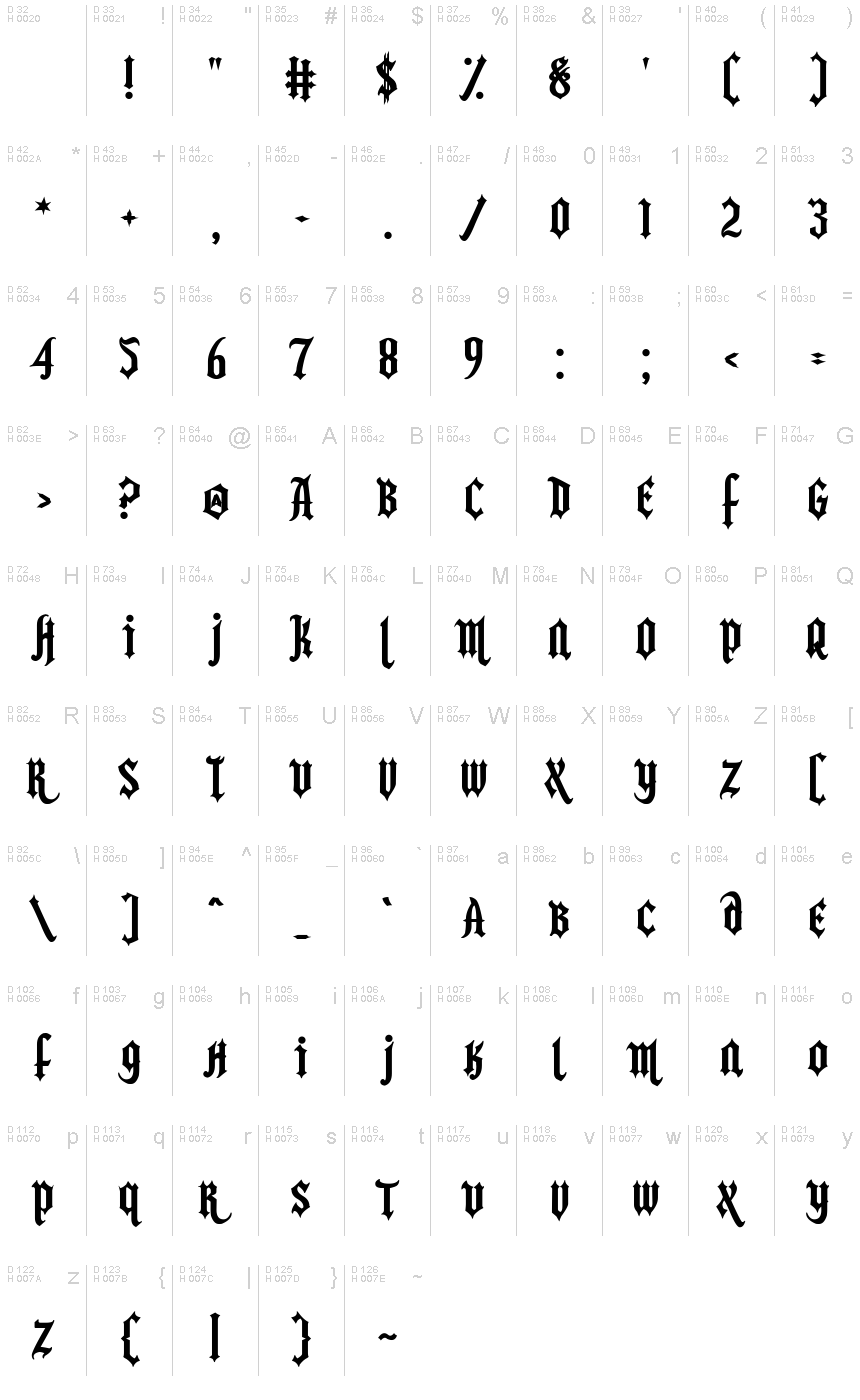
Flight of the Ocean
Flight of the Ocean, a modern gothic masterpiece crafted by Chequered Ink, captivates with its striking, condensed silhouette. This distinctive font radiates a sense of oceanic grandeur, evoking the mysterious and untamed power of the high seas. Its sharp, angular letterforms and seamless flow create a bold, impactful visual experience, making it a compelling choice for projects seeking a strong, dynamic aesthetic.
Versatile and adaptable, Flight of the Ocean lends itself well to a variety of design applications. Its condensed width and gothic flair make it an excellent selection for titling, headers, and attention-grabbing elements, while its legibility ensures smooth readability even at smaller sizes. Whether crafting a dramatic editorial layout, curating a moody brand identity, or enhancing the impact of a marketing campaign, this font's unique character is sure to make a lasting impression.